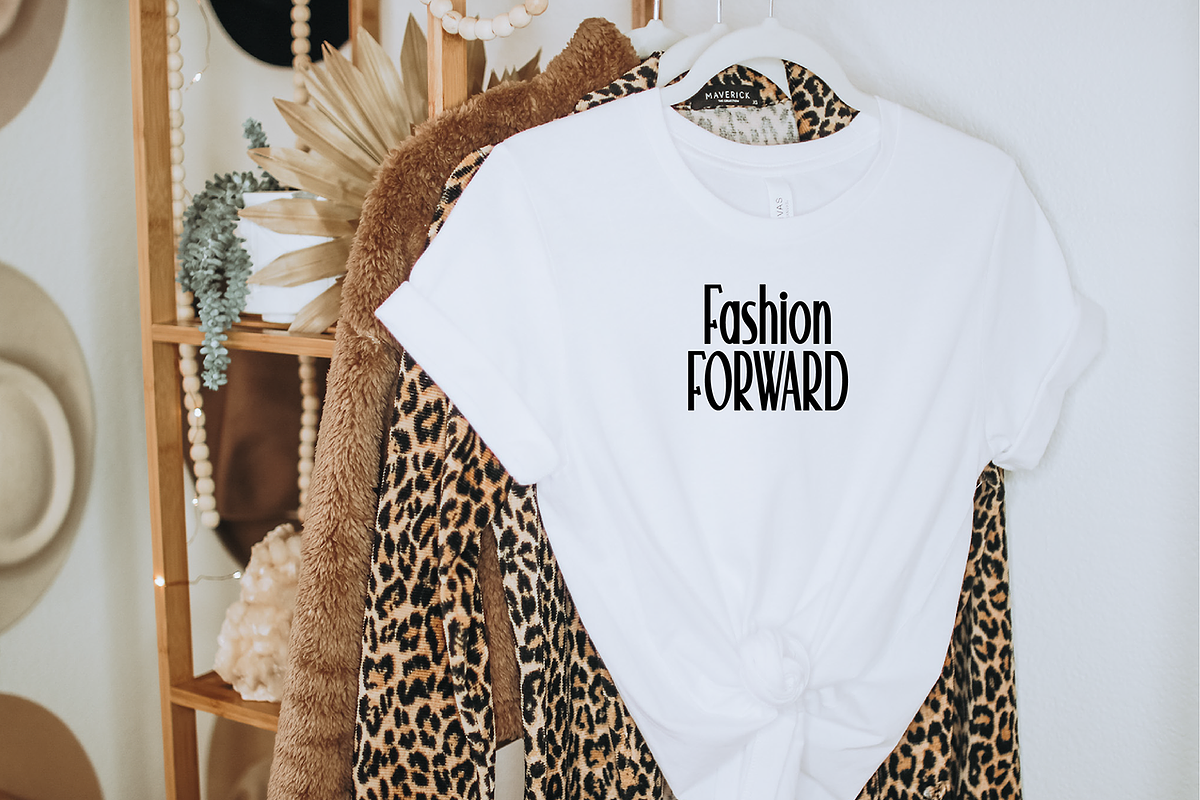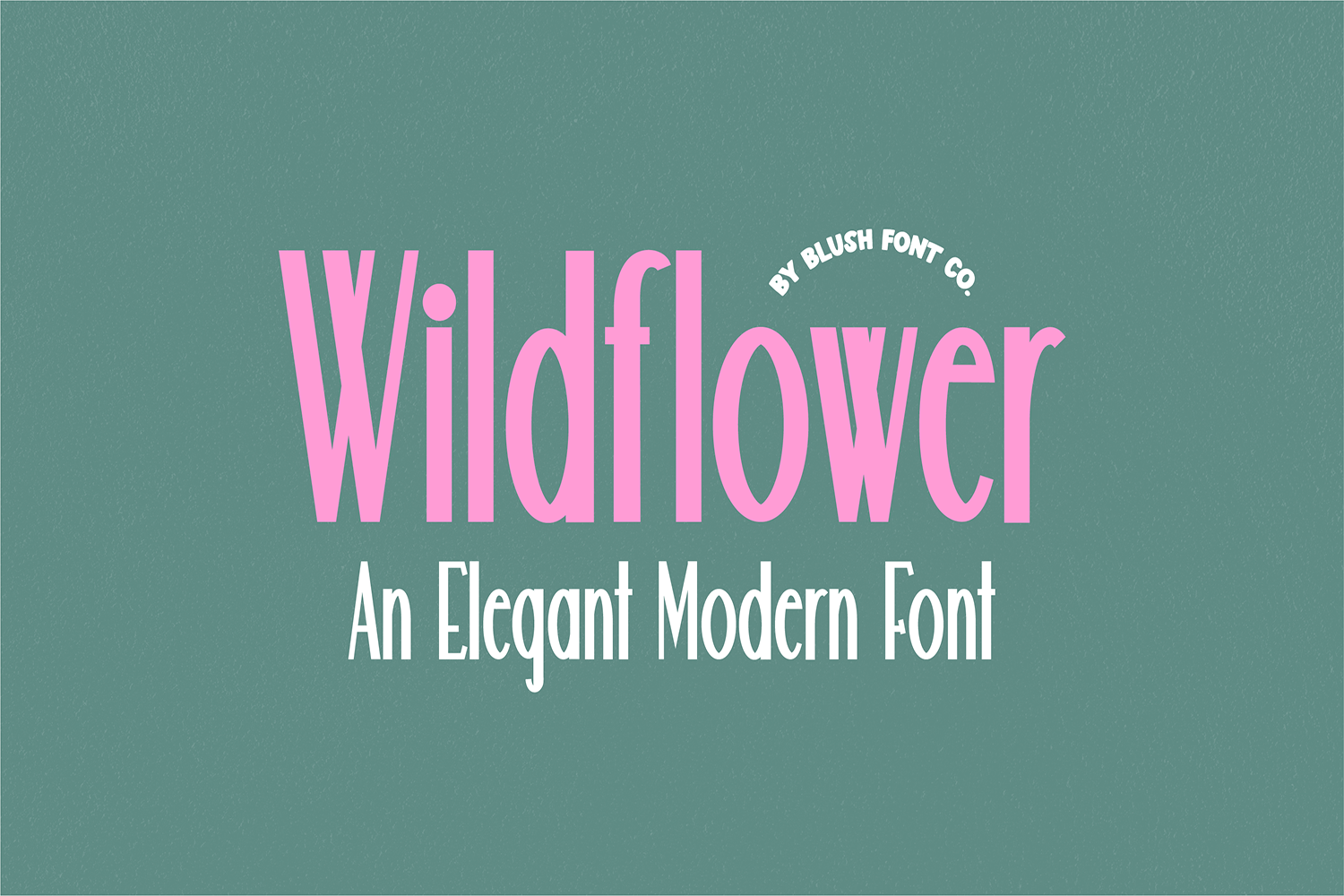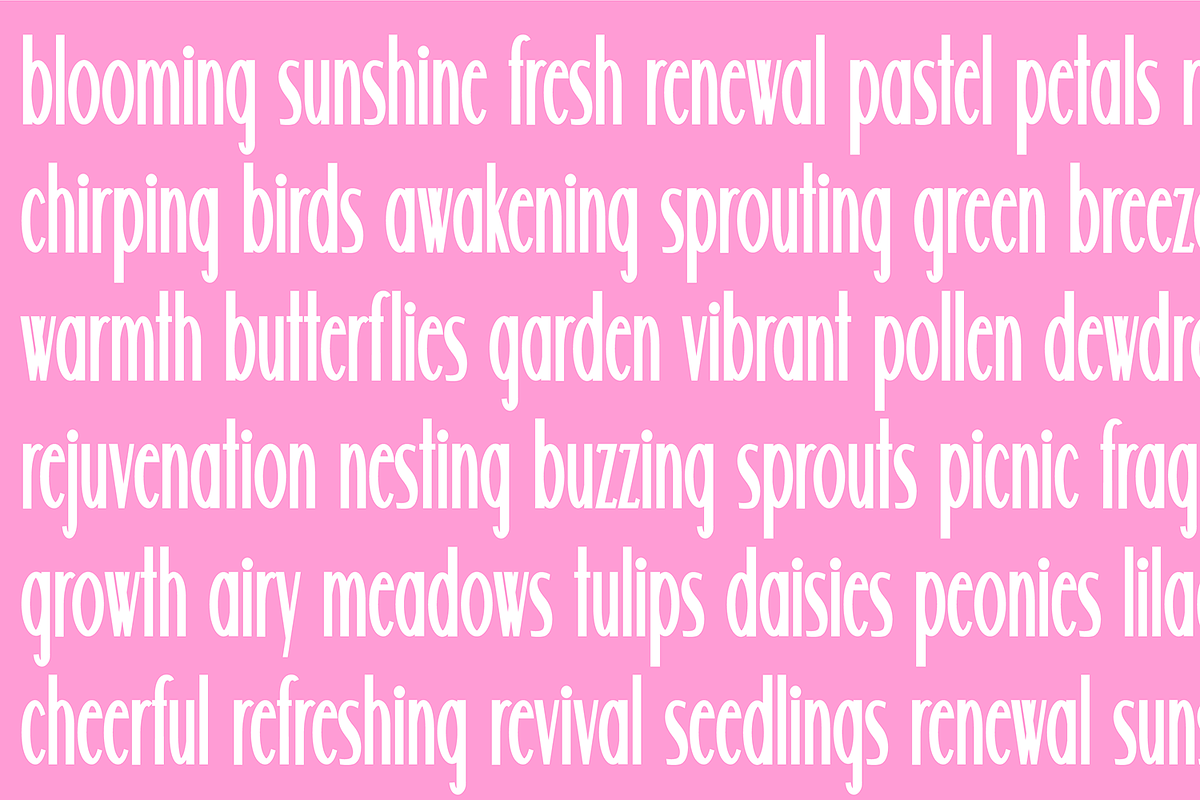
WILDFLOWER Modern Font
"Wildflower" a stylish modern font.
This font is a sleek modern font that is perfect for wedding or crafty projects. Use it for branding, crafts for decor, invitations, and more! Upper and lowercase glyphs, numbers, punctuation marks, and intl characters.